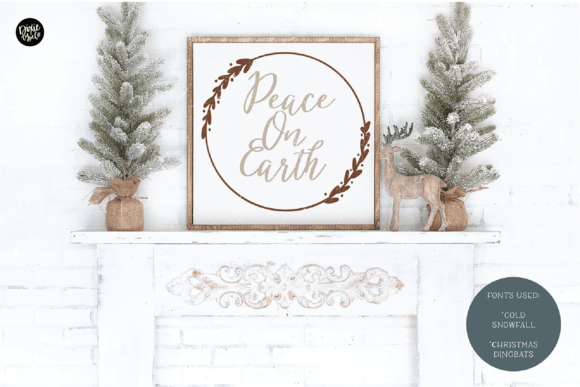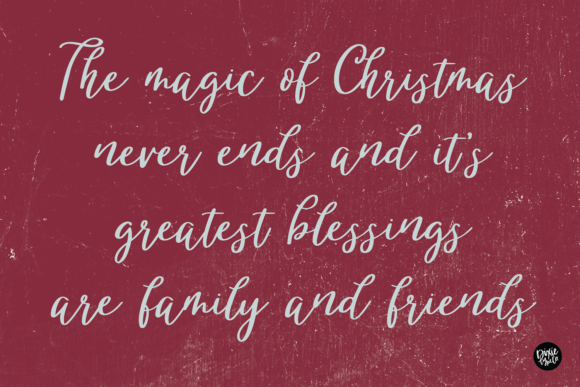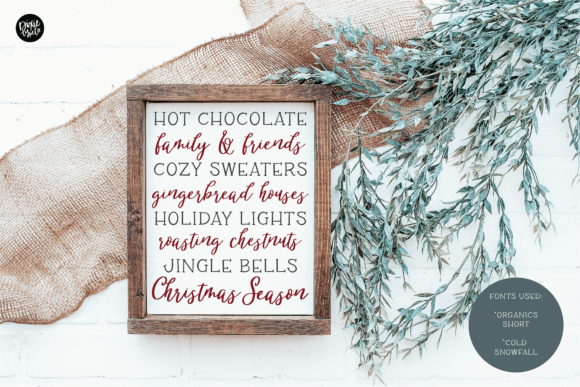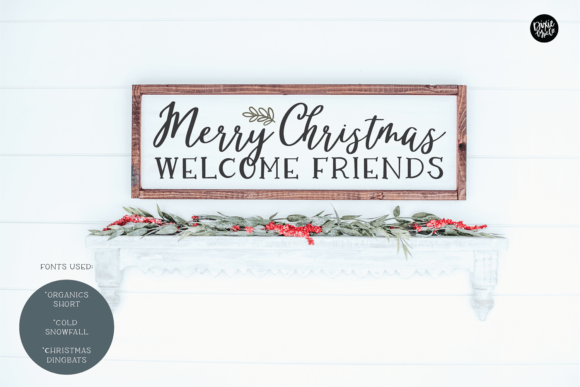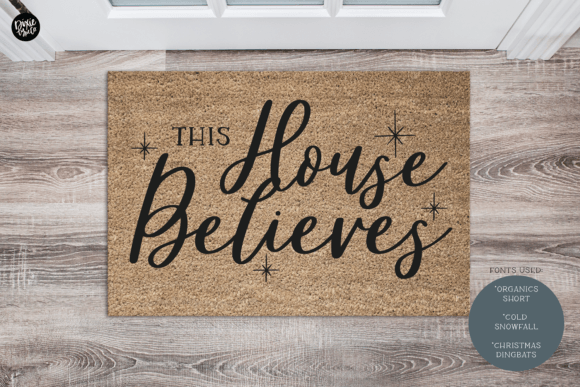
Introduction to Cold Snowfall Font
“Cold Snowfall” is a pretty winter script font.
Cold Snowfall is a vintage script font This font is great for holiday decor, cards, and farmhouse living.